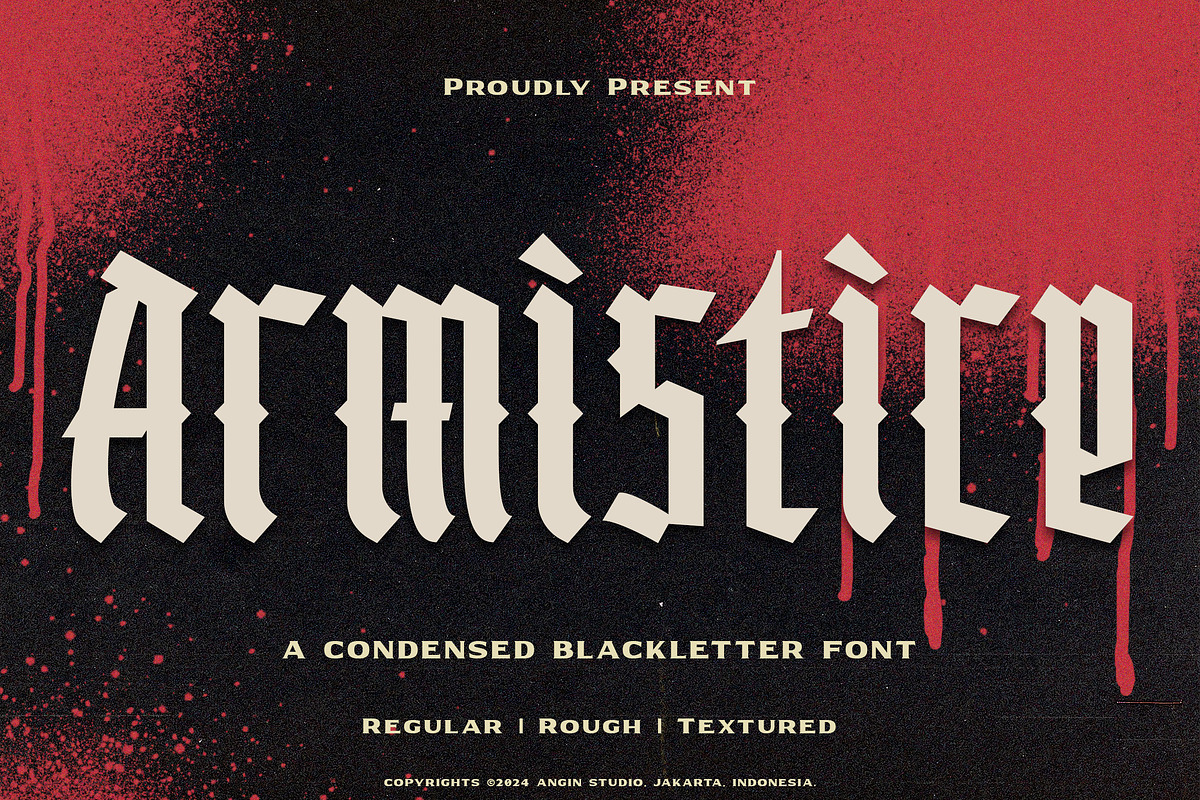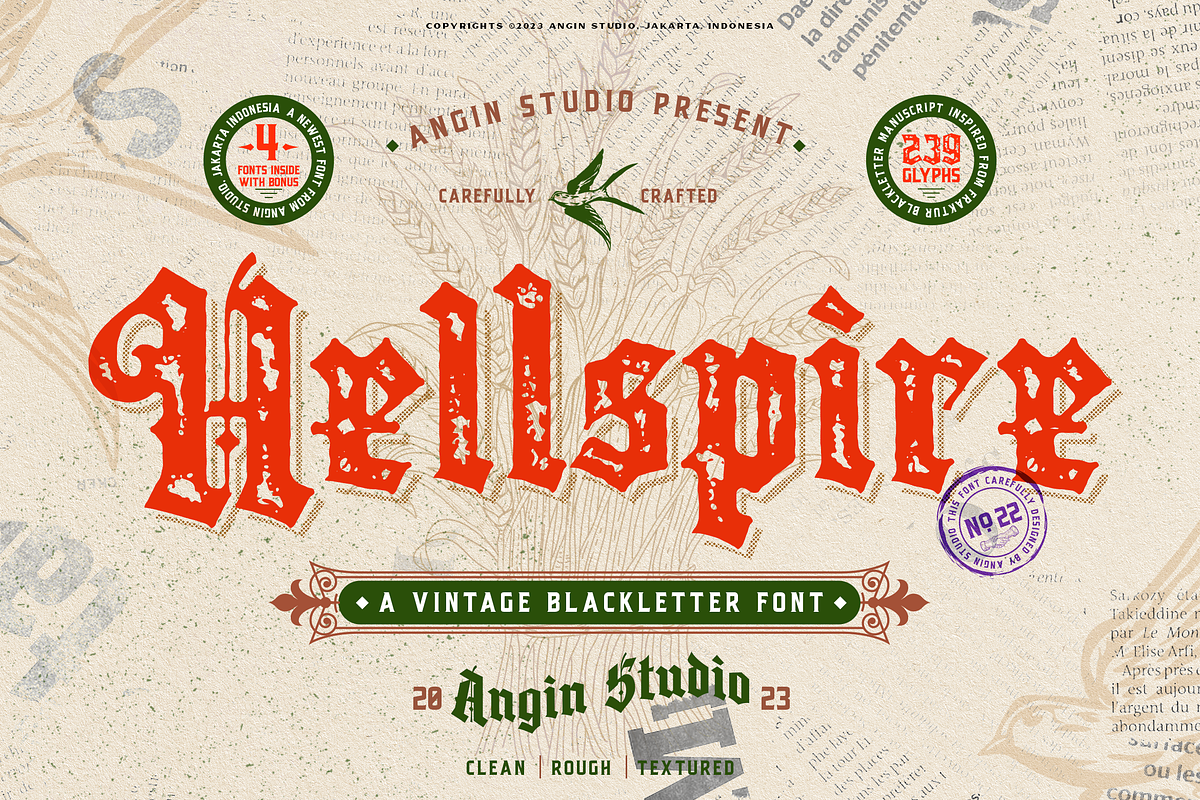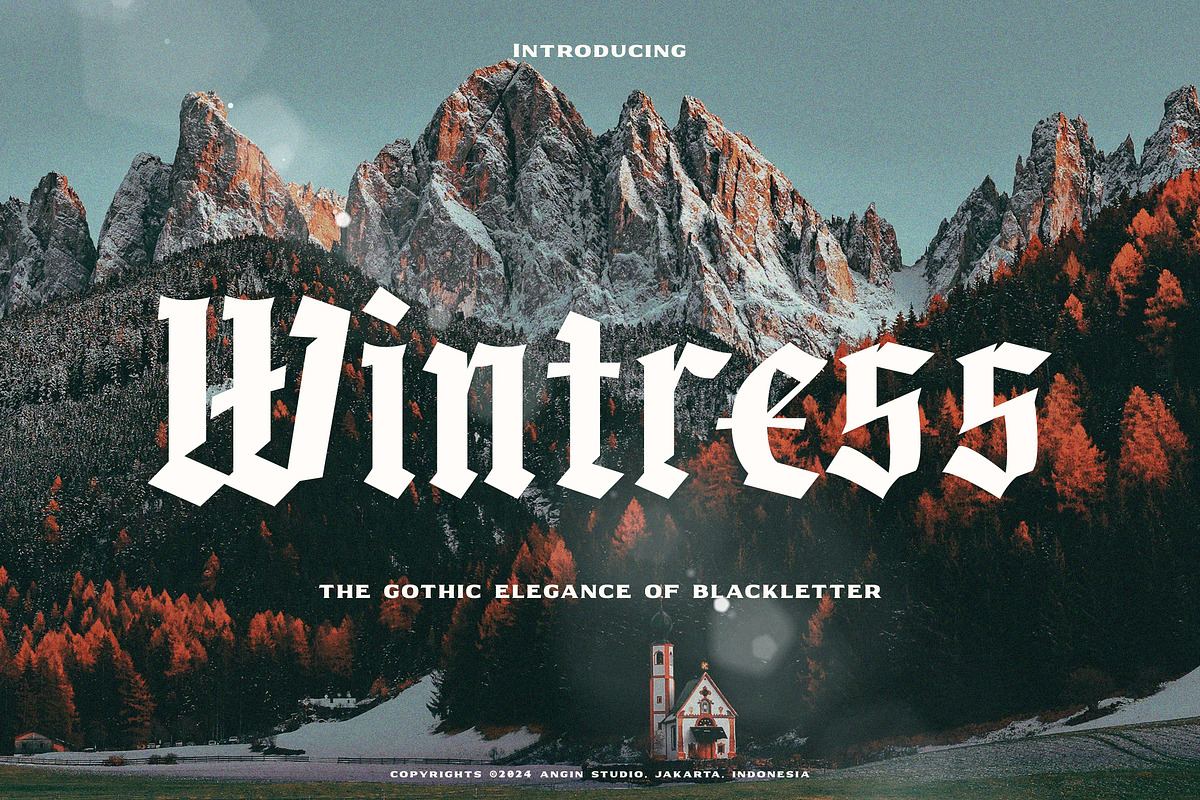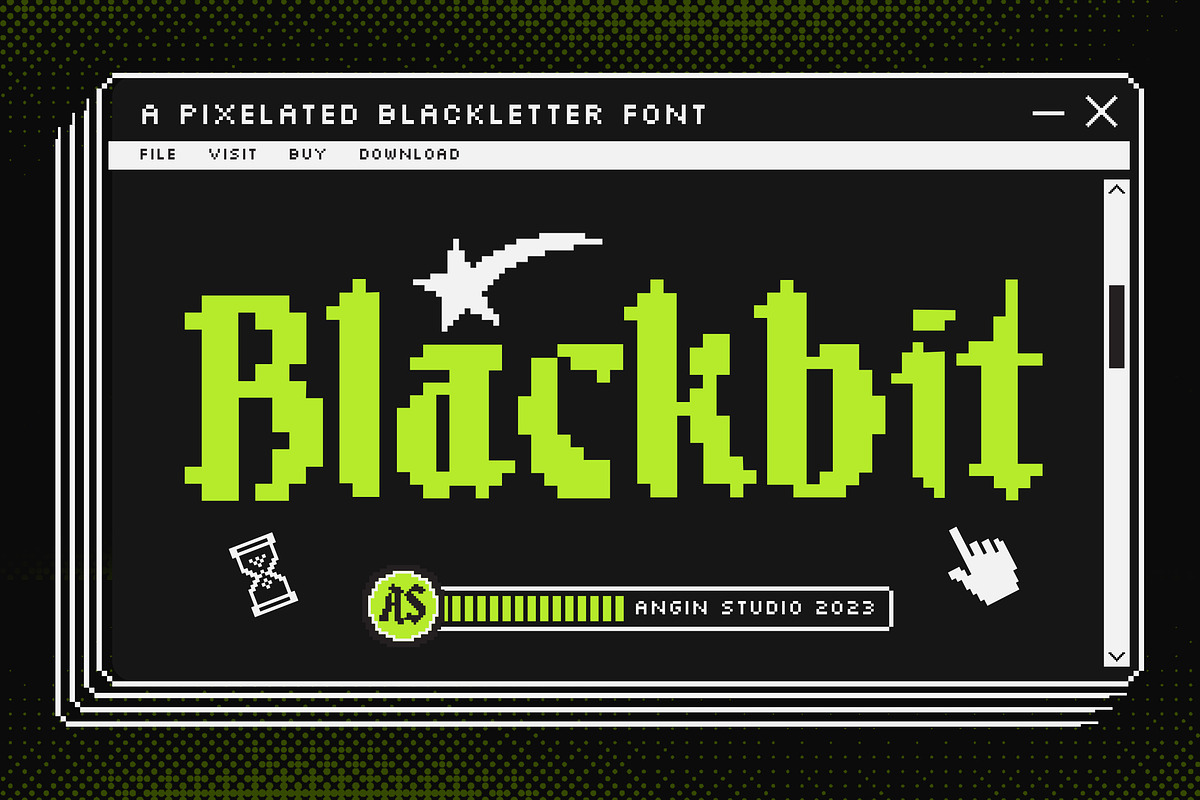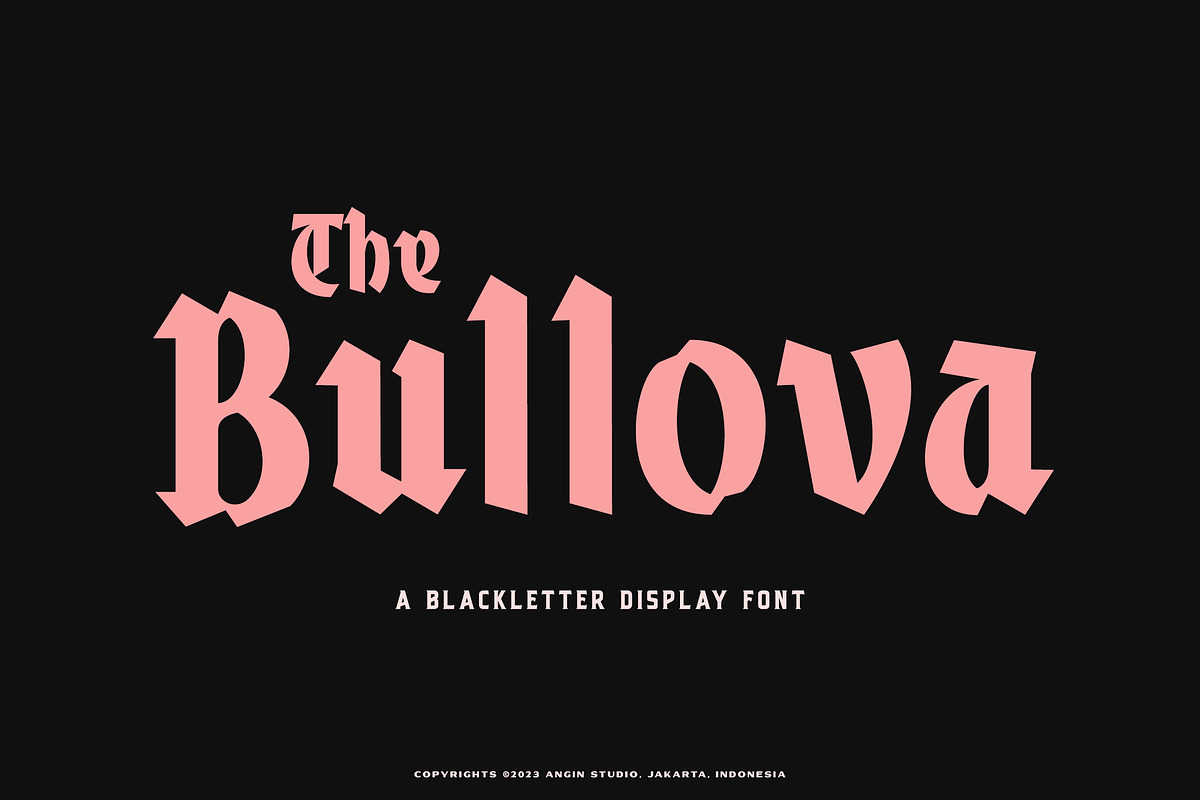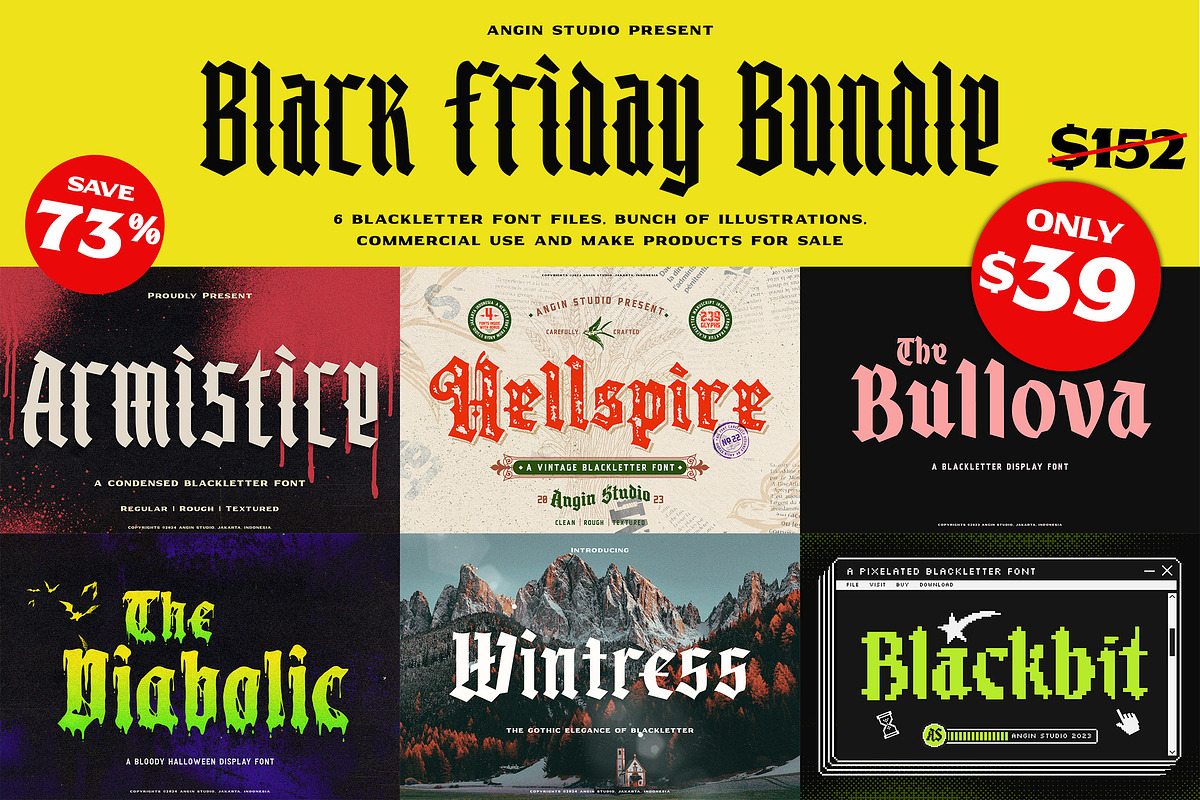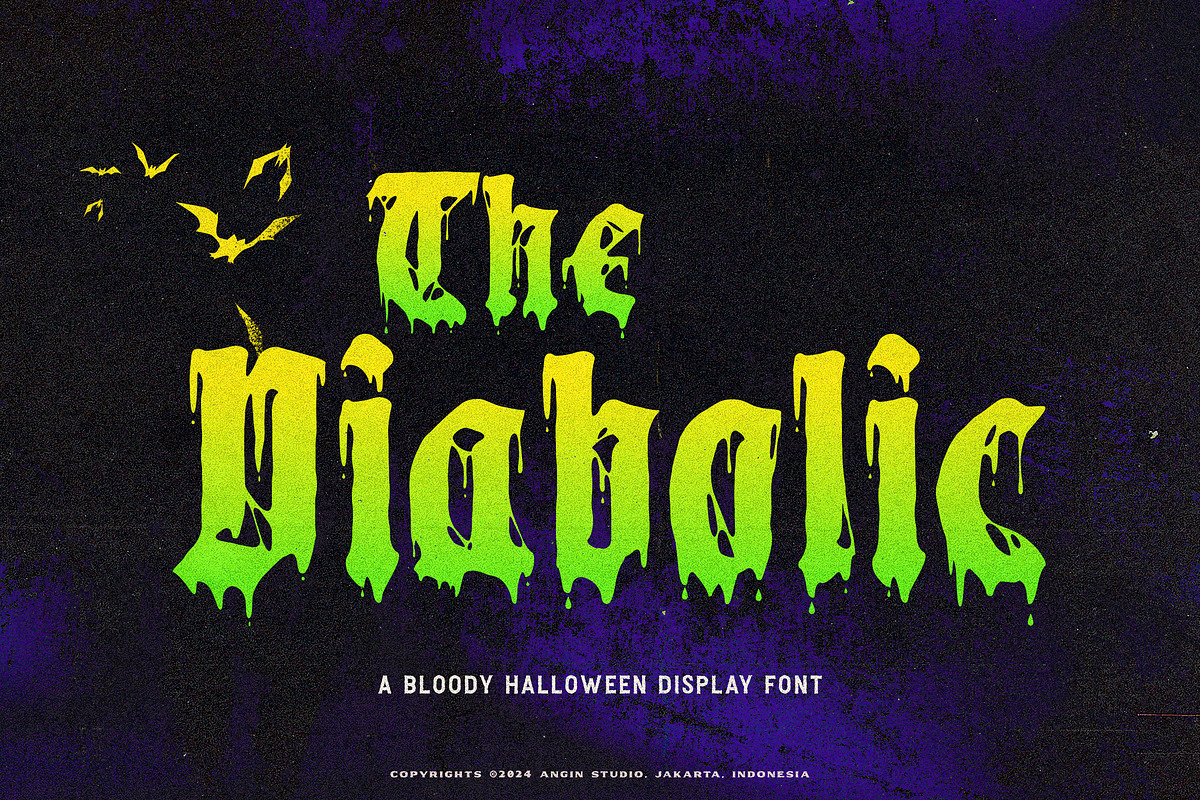
Angin Studio - Black Friday Bundle
The Ultimate Blackletter Collection – Limited-Time Deal!
Get the elegant and gothic vibes you’ve been searching for with our Black Friday Blackletter Font Bundle! Whether you’re designing for posters, branding, tattoos, or merch, this bundle has everything you need to elevate your work.
- Perfect for logos, calligraphy, and stunning typography